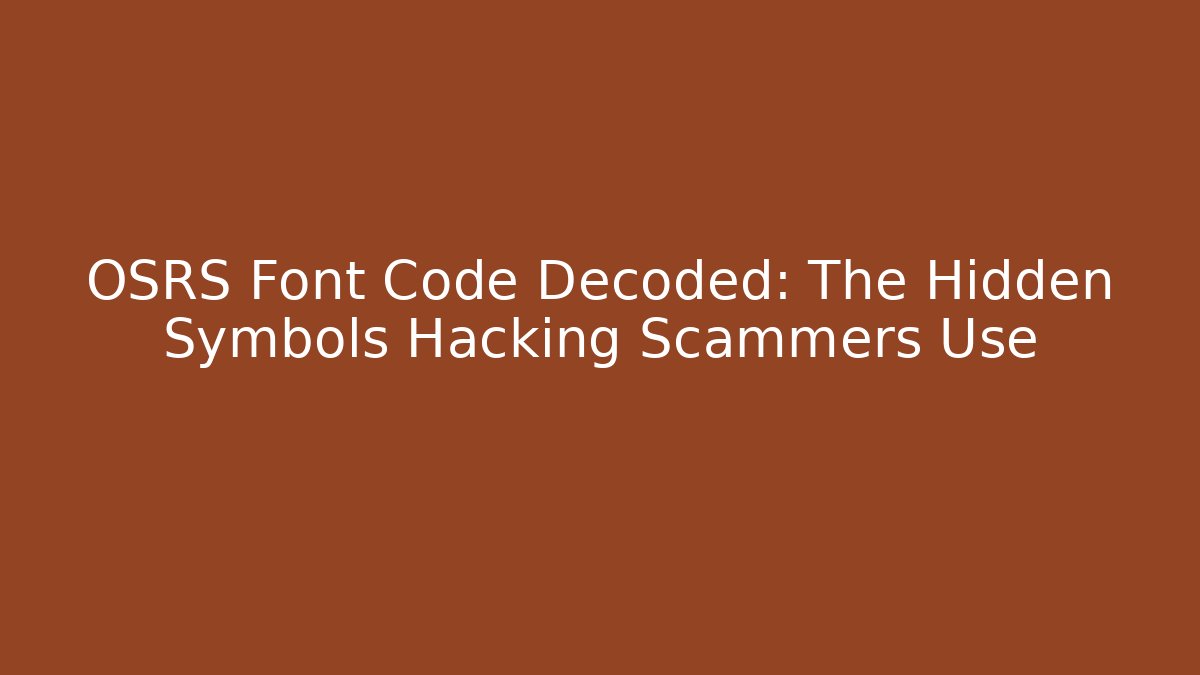
OSRS Font Code Decoded: The Hidden Symbols Hacking Scammers Use gains attention as new scams surface. Players spot risky copycat text in chats and fake sites.
What the code actually is
OSRS Font Code Decoded: The Hidden Symbols Hacking Scammers Use is a visual font swap trick. It replaces normal letters with lookalike symbols to slip past filters. Studies indicate these disguised words help phishing scams blend into game chat.
How it tricks you
Scammers copy chat logs and reuse styled names to impersonate players. Communities research these patterns to warn others about visual spoofing. This method also appears in fake loot sites and giveaway scams.
Stay alert for odd symbol names and verify links before clicking.
Why this matters now
Rise in social scams makes code spotting a useful safety skill. Tools that highlight unusual character shapes cut confusion risk. Players who check names carefully lower their chance of被骗.
How can I spot OSRS font tricks in chat?
Look for uneven letter spacing and odd symbol pairs. Compare names against the official clan tag list.
Can these symbol swaps get my account banned?
Using disguised names can trigger filters and mutes. Sharing scam links may lead to permanent bans.